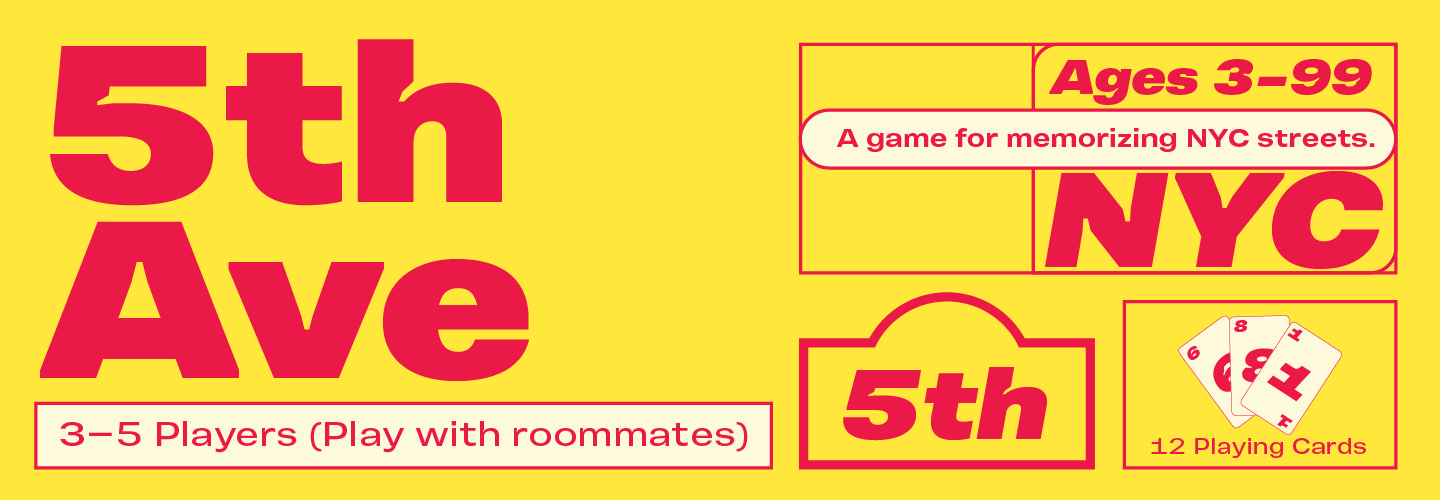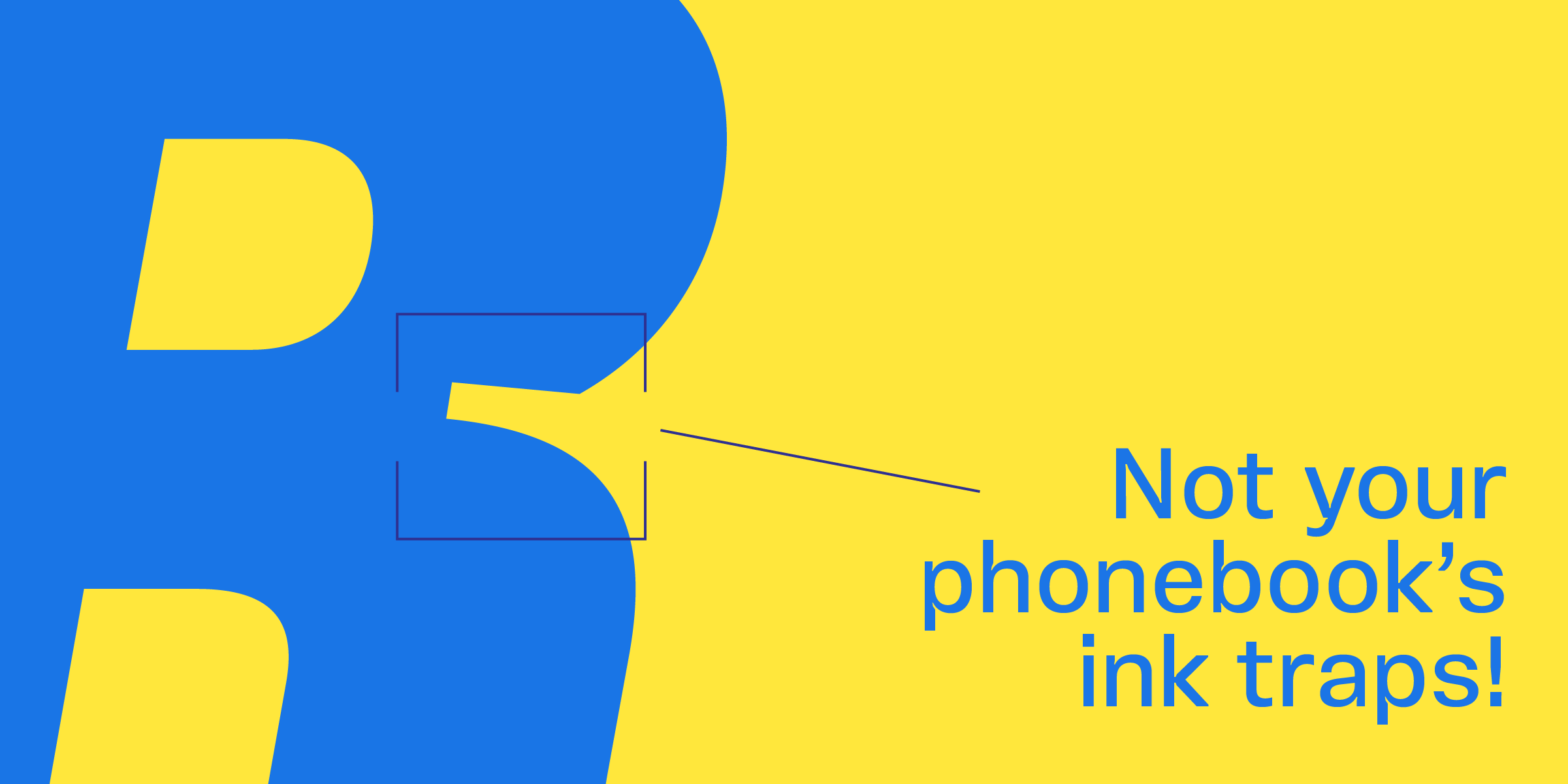
Grotesques answer a wide variety of design problems, but their ubiquity has encouraged uniformity. An injection of flavor into the grot category, Vinila stretches from text sizes to display without missing a beat. Its multi-purpose intention comes in the form of four widths—from compressed to extended—each with six weights and obliques. If that isn’t enough flexibility, Vinila’s variable style adds limitless nuance.
Rhythm and music played an important part in Vinila’s initial design: it started off as lettering for an album cover. Its distinctiveness comes from having powerful ink traps that go from elegant and supple in the lighter styles to commanding and impactful in the heavier styles. This creates a distinct rhythm, making it a strong face for editorial design, branding projects, and so much more.
To test the limits of Vinila’s facilities, Plau had some of the best designers in the world test it across various uses and environments, from print to digital, mobile, and more. The verdict is in: Vinila works, and it works well.
Vinila is the ideal companion to expressive display faces, where it serves a supporting role without sacrificing its own character. On the other hand, you can use Vinila as a punchy display face, pairing it with something a little more reserved in your text. Plau themselves use Vinila every day in their own brand identity, demonstrating its personality and strength firsthand.